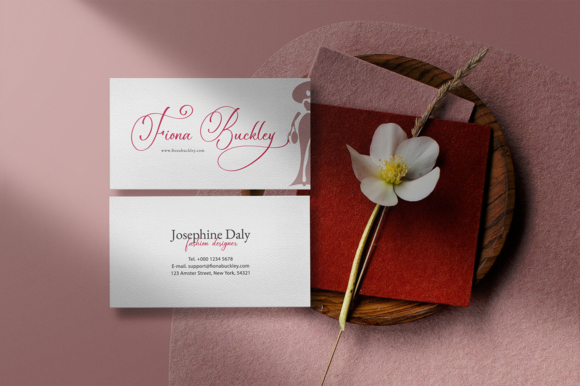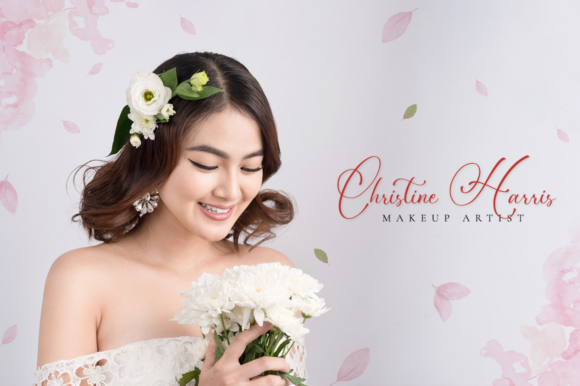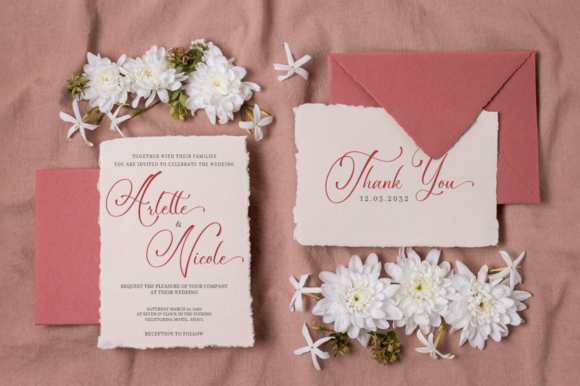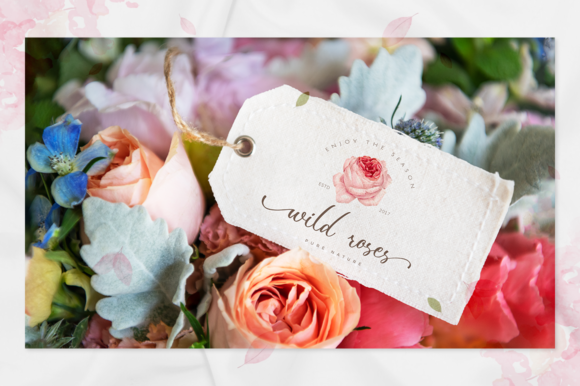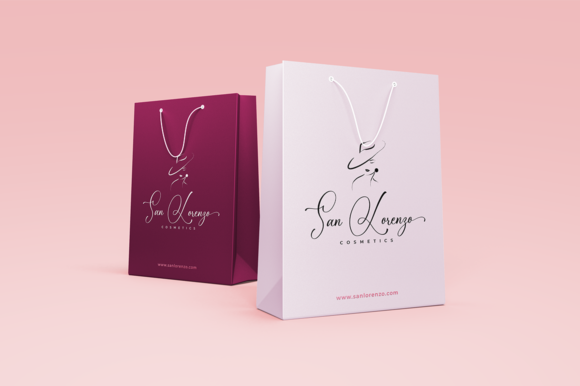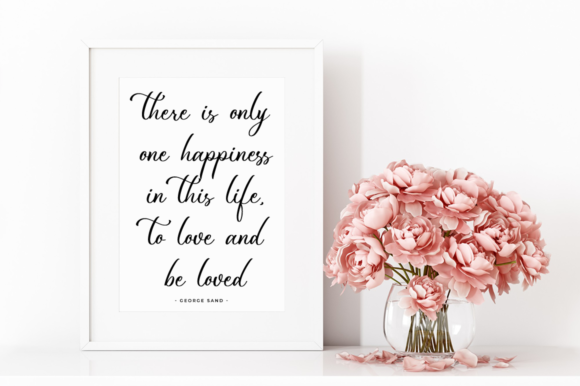
Introduction to Romantically Font
Romantically is an exquisite handwritten font, masterfully designed to become a true favorite.
Key Features of Romantically Font